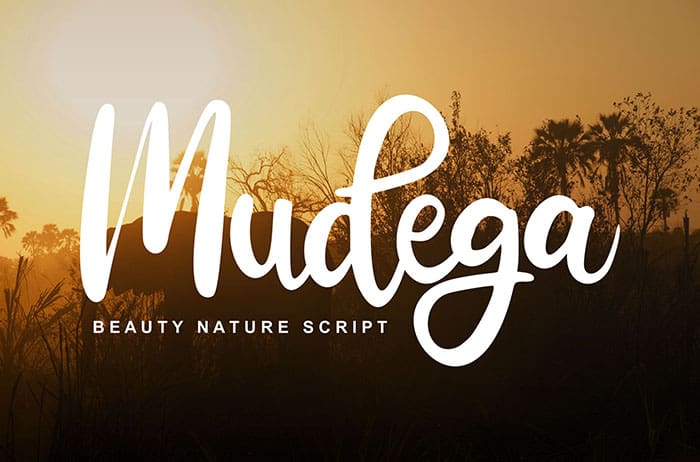
Mudega Script Font is classy and playful with great energy. This font will make perfect designs for logos, posters, blog posts, social media, and more! This font free for personal use only, if you need commercial use and full version please download in here.